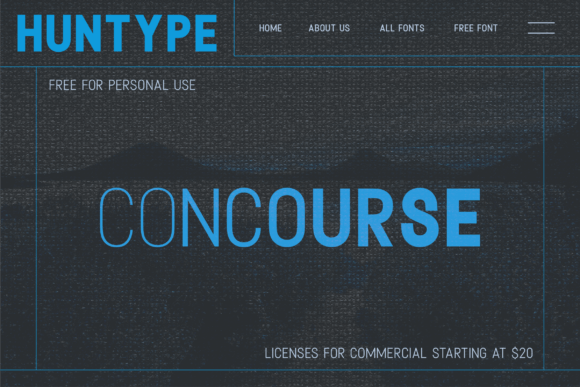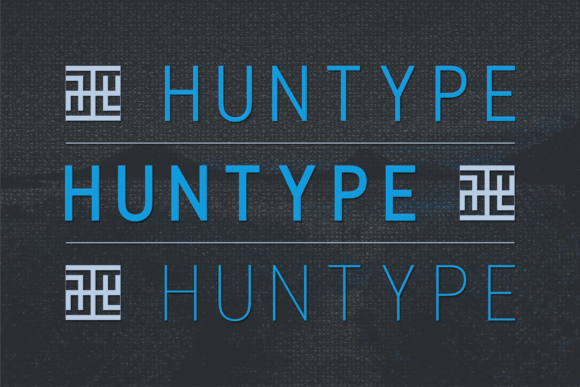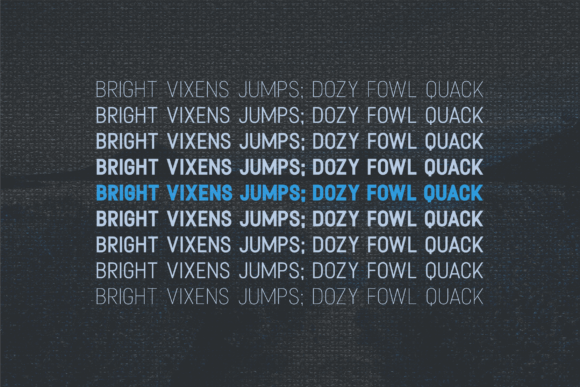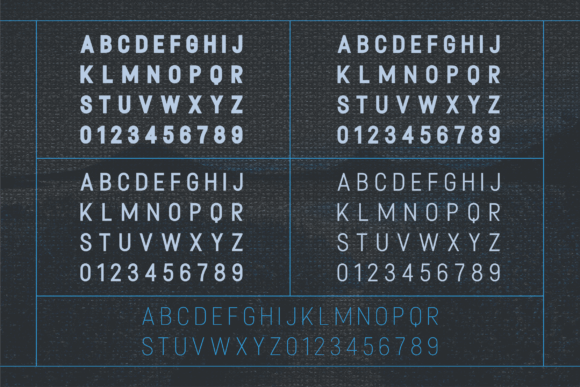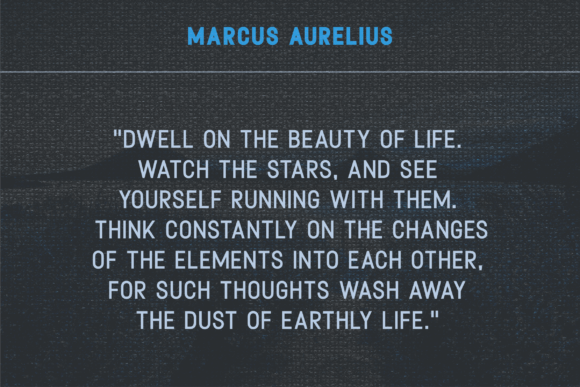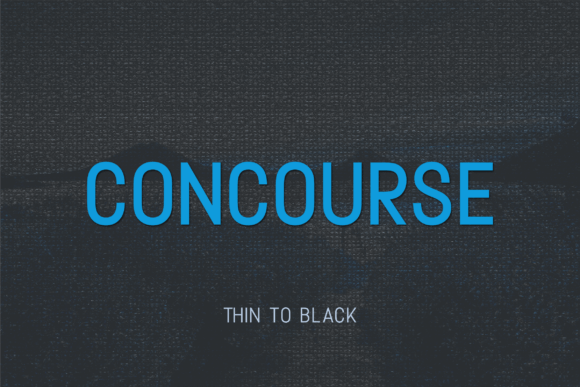
Introducing Concourse Font: A Modern and Versatile Typeface
In the world of typography, a font can make or break a design project. With the vast array of typefaces available, finding the perfect one that embodies both style and substance can be a daunting task. However, for those seeking a modern and sophisticated look, Concourse Font is an excellent choice. This comprehensive font family is a masterful blend of clean geometric forms and subtle sophistication, making it an ideal choice for designers and crafters alike.
The Concourse Advantage: A Harmonious Balance of Form and Function
Concourse Font boasts a unique and adaptable style that is evident in its precise letterforms and contemporary aesthetic. The font’s design is characterized by a harmony of sharp lines and gentle curves, creating a visually appealing and refined look. Each font in the Concourse family stands alone, impactful and sophisticated in its own right, making it perfect for a wide range of design applications.
Key Features of Concourse Font
- Clean Geometric Aesthetic: Concourse Font features a clean and geometric design, making it perfect for projects that require a modern and sophisticated look.
- Range of Weights: The font family offers a range of weights, providing flexibility to explore a wide array of applications and lending a modern and professional feel to any project.
- Versatility: Concourse Font excels in branding, logos, headlines, and various design projects, making it a versatile choice for designers and crafters.
- Precise Letterforms: The font’s precise letterforms and contemporary aesthetic make it perfect for projects that require a high level of sophistication.
Applications of Concourse Font
Concourse Font is an excellent choice for a wide range of design projects, including:
- Branding: Create a lasting impression with Concourse Font’s clean and sophisticated design, perfect for logos, business cards, and brand guidelines.
- Headlines: Add a touch of modernity to your headlines with Concourse Font’s precise letterforms and geometric aesthetic.
- Logos: Create a professional and memorable logo with Concourse Font’s versatile design.
- Design Projects: From brochures to websites, Concourse Font is perfect for any design project that requires a modern and sophisticated look.
Why Choose Concourse Font?
With so many font options available, why choose Concourse Font? Here are just a few reasons:
- Unique Design: Concourse Font’s harmonious balance of sharp lines and gentle curves creates a unique and visually appealing design.
- Flexibility: The font family’s range of weights provides flexibility to explore a wide array of applications.
- Modern and Sophisticated: Concourse Font is perfect for projects that require a modern and sophisticated look.
In conclusion, Concourse Font is a modern and versatile typeface that is perfect for designers and crafters seeking a sophisticated and modern look. With its clean geometric aesthetic, range of weights, and precise letterforms, Concourse Font excels in a wide range of design applications. Whether you’re working on a branding project, creating a logo, or designing a website, Concourse Font is an excellent choice.
Get Ready to Elevate Your Design with Concourse Font